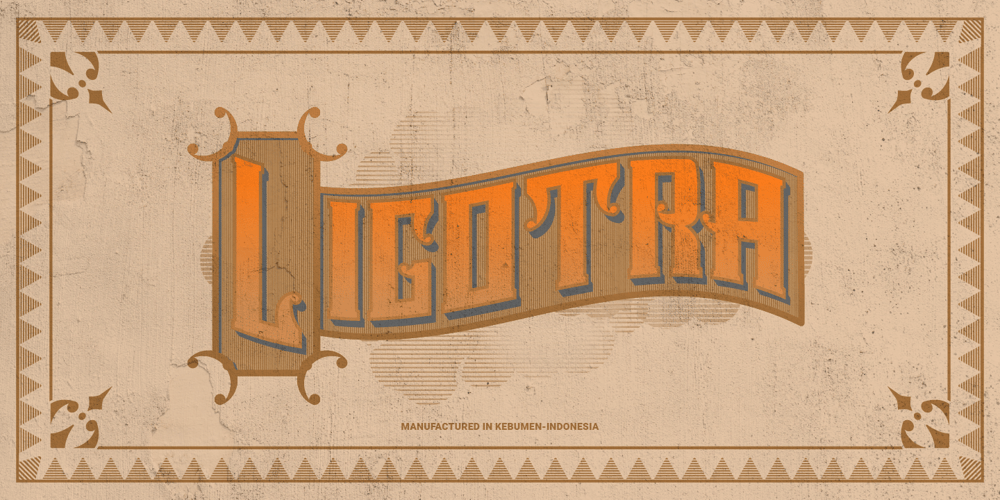
Ligotra Font Family was designed by Prio Nurokhim Aji and published by Prioritype. Ligotra contains 1 styles and family package options. Ligotra font comes in a victorian style, looks simple and not too complicated, but still has character. What can be used in this font? Of course, there are so many and can be explored as needed because it contains many alternative characters.You can use it on digital or print media such as food and beverage products or labels, music festivals, labels, vinyl records, clothing & accessories, automotive and many more. For reference, see preview.Features:-Uppercase-Lowercase-Numeral-Punctuation-Multilingual-Alternate